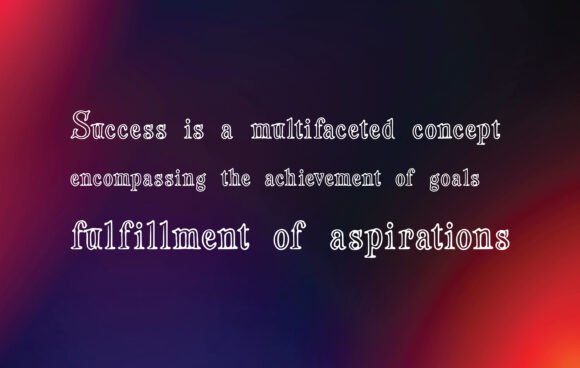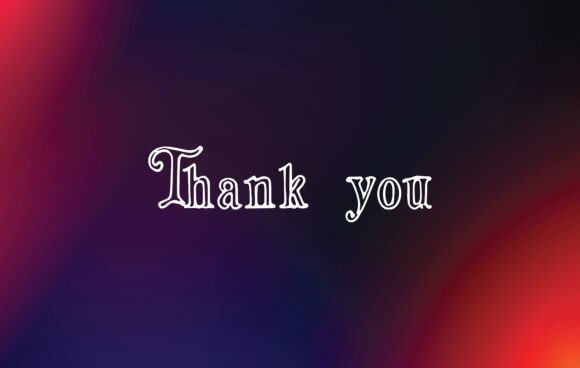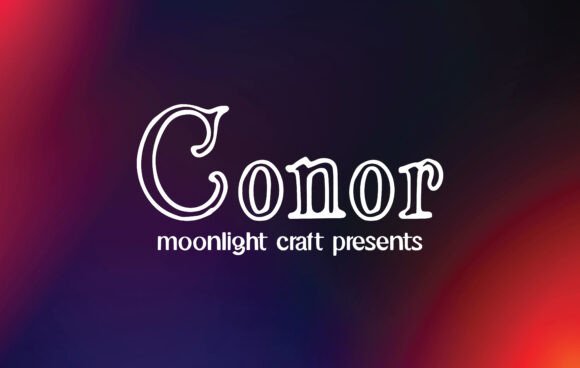
Discover the Elegance of Conor Font: Elevate Your Designs with a Lovely Serif Typeface
In the world of typography, fonts play a crucial role in bringing creative ideas to life. For designers and crafters, finding the perfect font can be a daunting task. However, if you’re looking for a typeface that exudes elegance and sophistication, look no further than Conor Font. This lovely and beautiful serif font has the potential to take your creative projects to new heights, making it an ideal choice for those seeking to make a lasting impression.
The Characteristics of Conor Font
Conor Font is a serif typeface that boasts a classic and timeless design. Its elegant lines, refined curves, and precise letter spacing make it perfect for creating visually stunning text. The font’s serif details add a touch of sophistication, making it suitable for a wide range of applications, from luxury branding to eye-catching logos and quotes.
Why Choose Conor Font?
So, what sets Conor Font apart from other typefaces? Here are just a few reasons why designers and crafters love this beautiful font:
• Elegant and Sophisticated: Conor Font’s classic design makes it perfect for creating high-end branding, logos, and marketing materials that require a touch of luxury.
• Versatile: This font is suitable for a wide range of applications, from digital media to print materials, making it a great addition to any designer’s toolkit.
• Easy to Read: Conor Font’s clear and precise lettering ensures that your text is easy to read, even at small sizes.
• Customizable: With its wide range of weights and styles, Conor Font can be tailored to suit your specific design needs.
Using Conor Font for Logos and Branding
When it comes to creating eye-catching logos and branding materials, Conor Font is an excellent choice. Its elegant design and precise lettering make it perfect for:
• Logos: Create stunning logos that make a lasting impression with Conor Font’s classic design.
• Wordmarks: Use Conor Font to create beautiful wordmarks that showcase your brand’s personality.
• Taglines: Add a touch of sophistication to your taglines with Conor Font’s elegant lettering.
Tips for Using Conor Font Effectively
To get the most out of Conor Font, here are a few tips to keep in mind:
• Pair with Other Fonts: Combine Conor Font with other fonts to create a unique and visually appealing typography.
• Experiment with Weights and Styles: Try out different weights and styles to find the perfect combination for your design.
• Pay Attention to Kerning: Adjust the kerning to ensure that your text looks balanced and visually appealing.
In conclusion, Conor Font is a beautiful and elegant serif typeface that has the potential to elevate your creative projects to new heights. Its classic design, precise lettering, and versatility make it perfect for creating eye-catching logos, branding materials, and quotes. Whether you’re a designer or crafter, Conor Font is an excellent addition to your toolkit. So why wait? Discover the elegance of Conor Font today and take your designs to the next level!